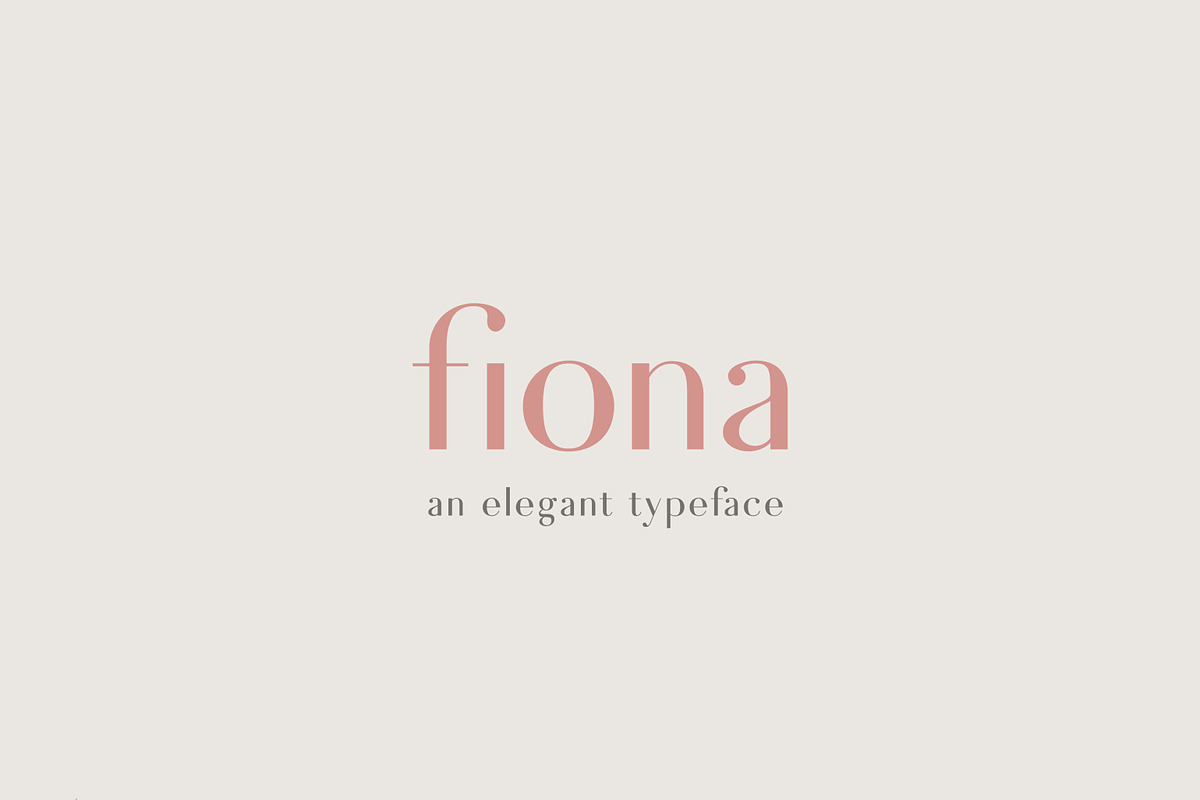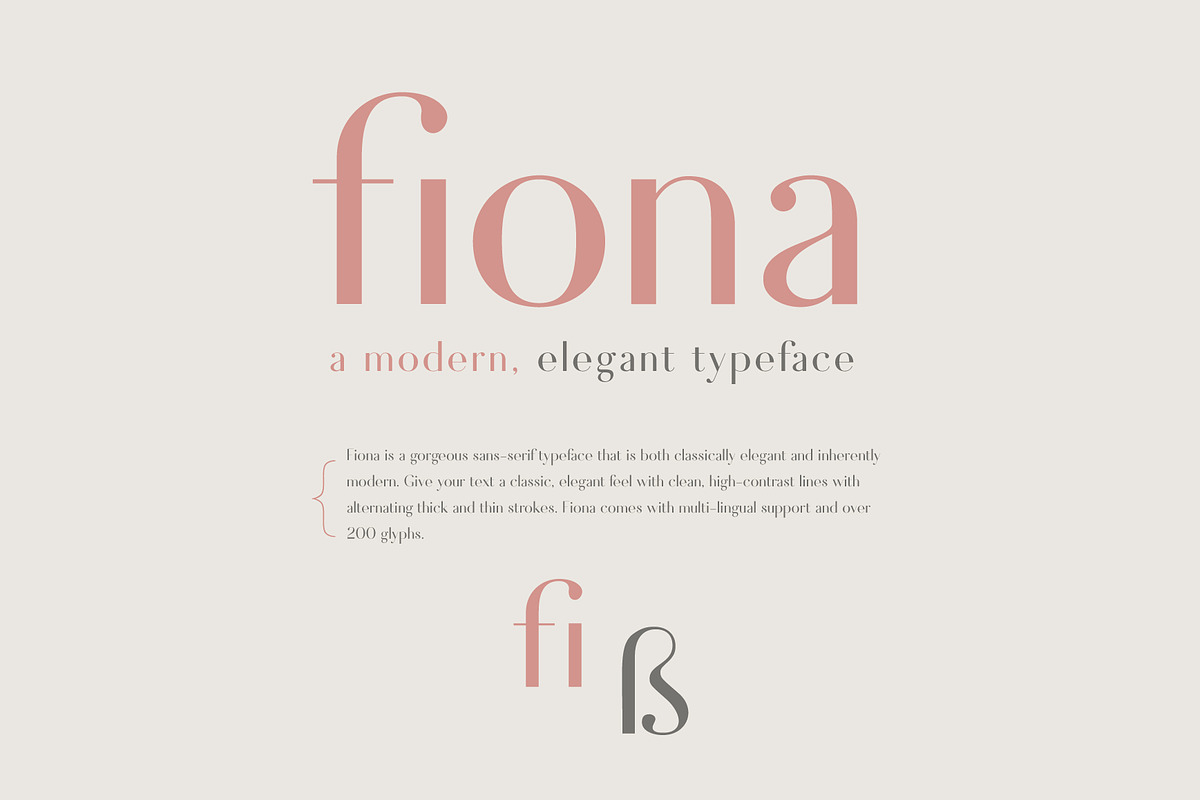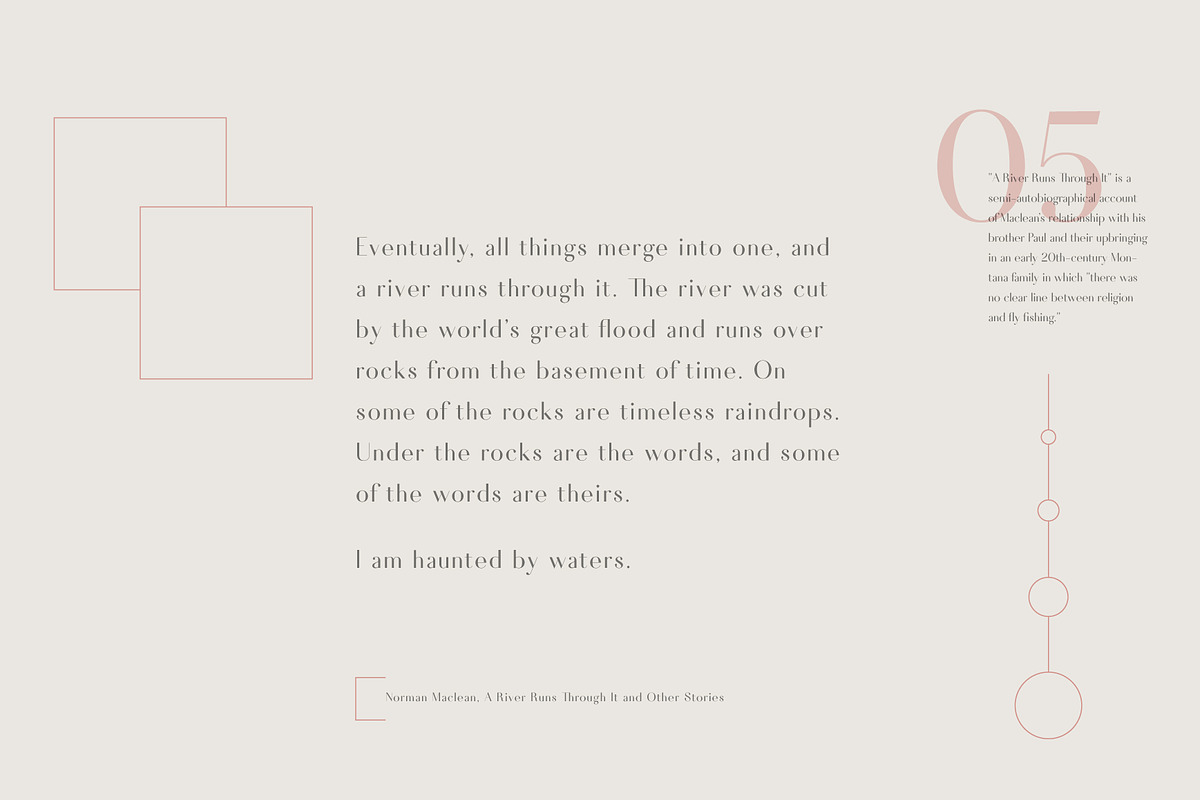
Fiona - An Elegant Typeface
Fiona is a gorgeous sans-serif typeface that is both classically elegant and inherently modern. Create beautiful wedding invitations, use it as an elegant solution for your next magazine layout, or choose Fiona for any graphics that require a sleek look with a vintage flair. Fiona is based on classic letterforms for publishing and display graphics, so you can give your text a classic, elegant feel with Fiona's clean, high-contrast lines and alternating thick and thin strokes.
Uppercase Characters
Lowercase Characters
Discretionary Ligatures
Multilingual support for various languages including: French, German, Spanish, Portuguese, Italian, Dutch, Finnish, Swedish, and more.